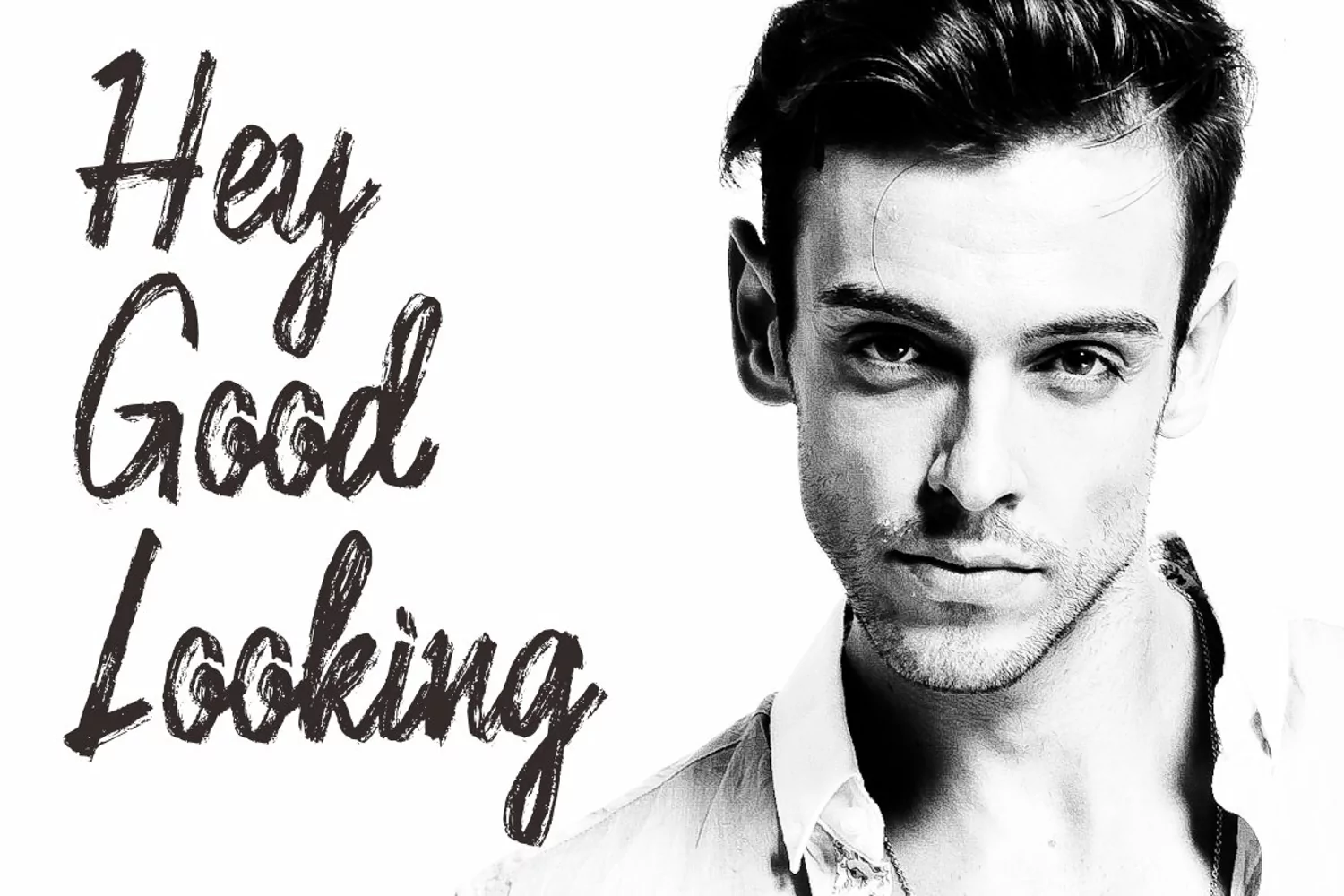
Full Out font script brush . This font was designed by handwriting, and it has a modern and unique forms of calligraphy, the writing style is very natural.
• Can be used for various purposes.such as headings, logos, wedding invitation, t-shirt, letterhead, signage, lable, news, posters, badges etc. To enable the OpenType Stylistic alternates, you need a program that supports OpenType features such as Adobe Illustrator CS, Adobe Indesign & CorelDraw X6-X7.